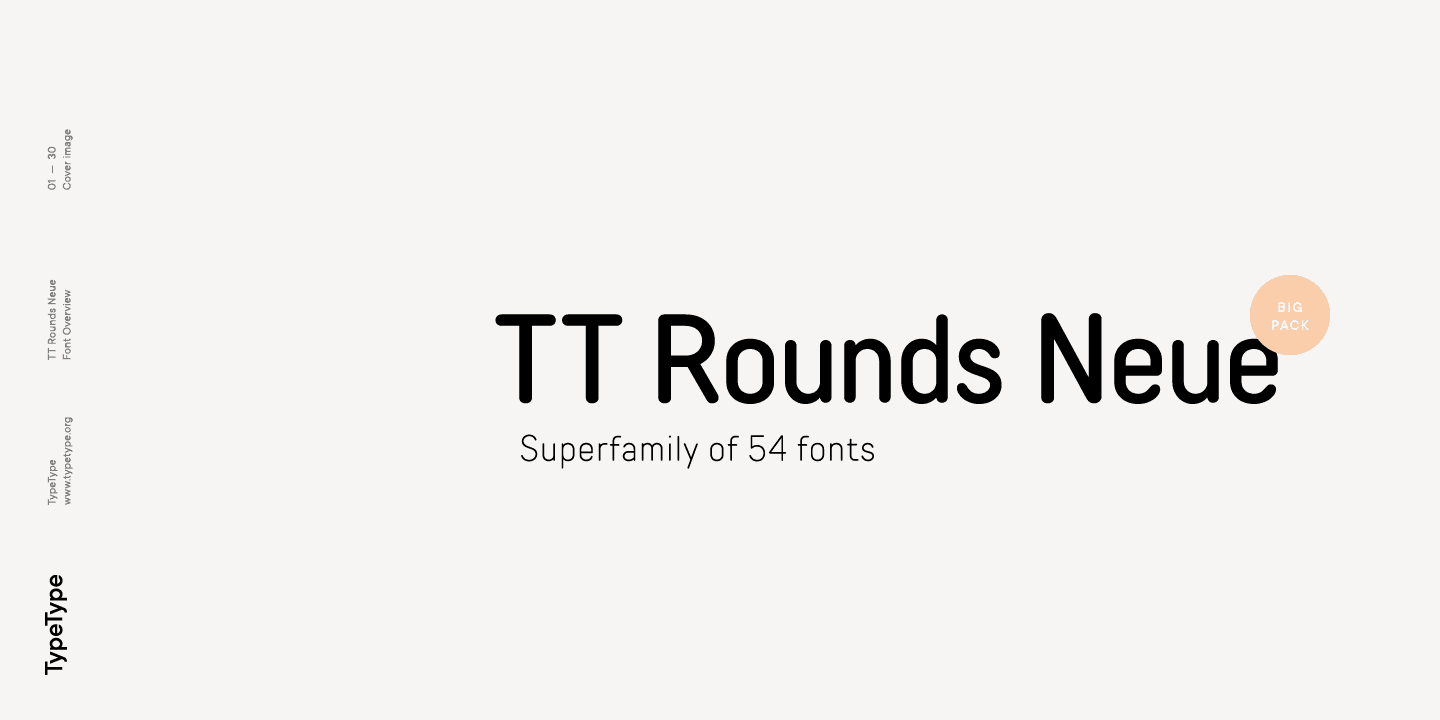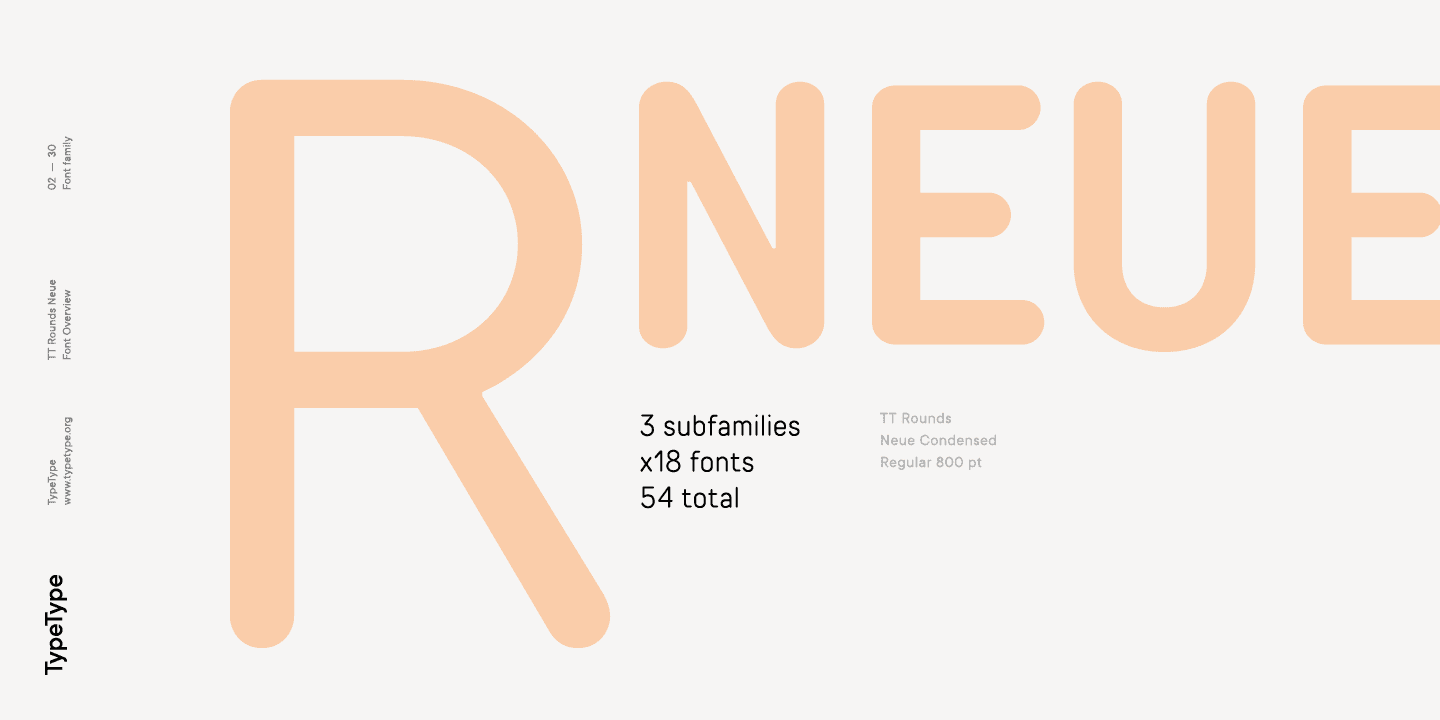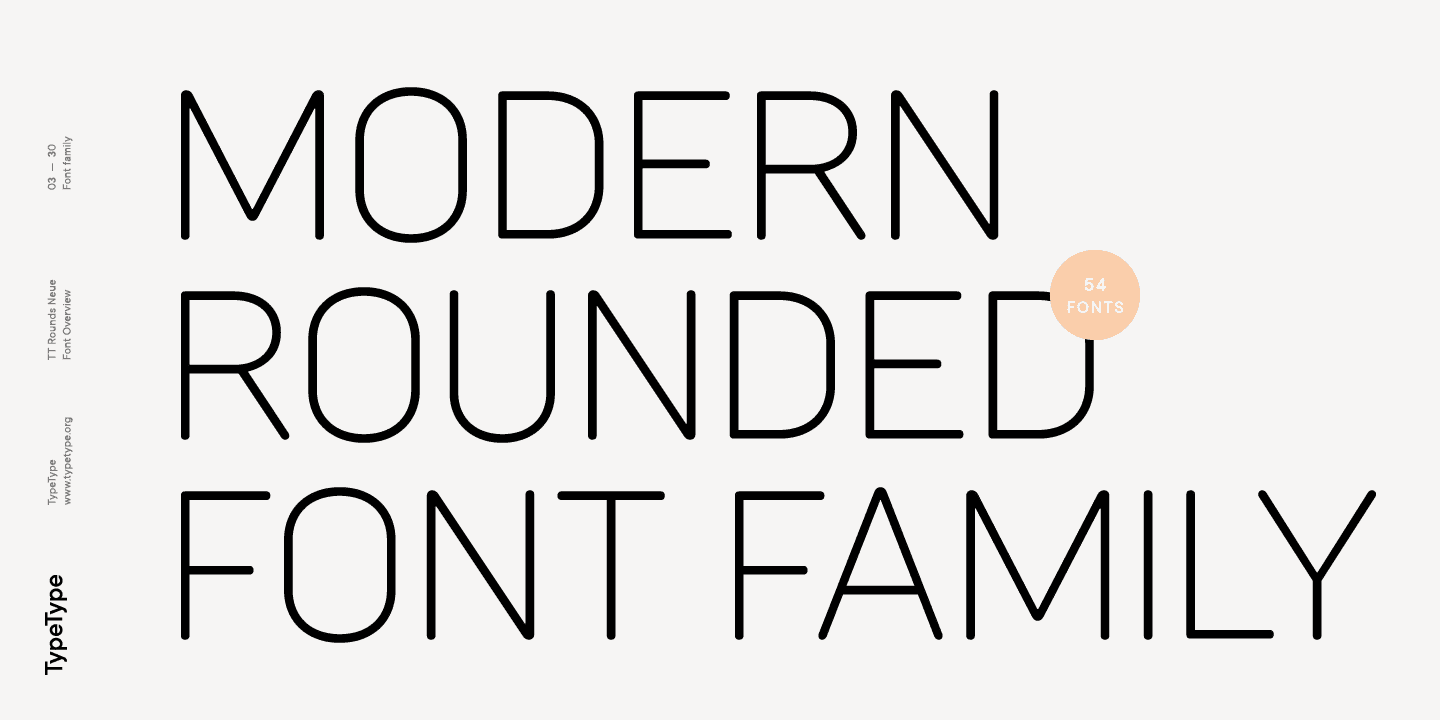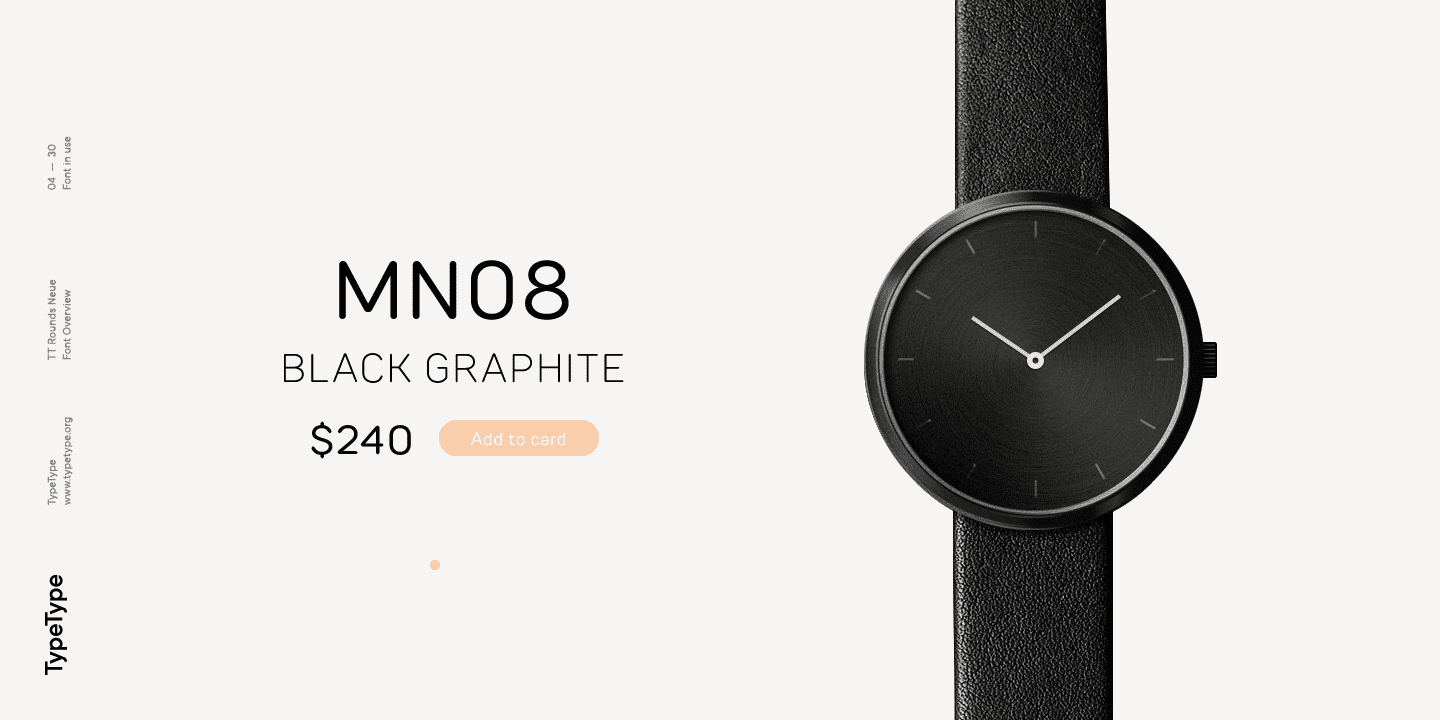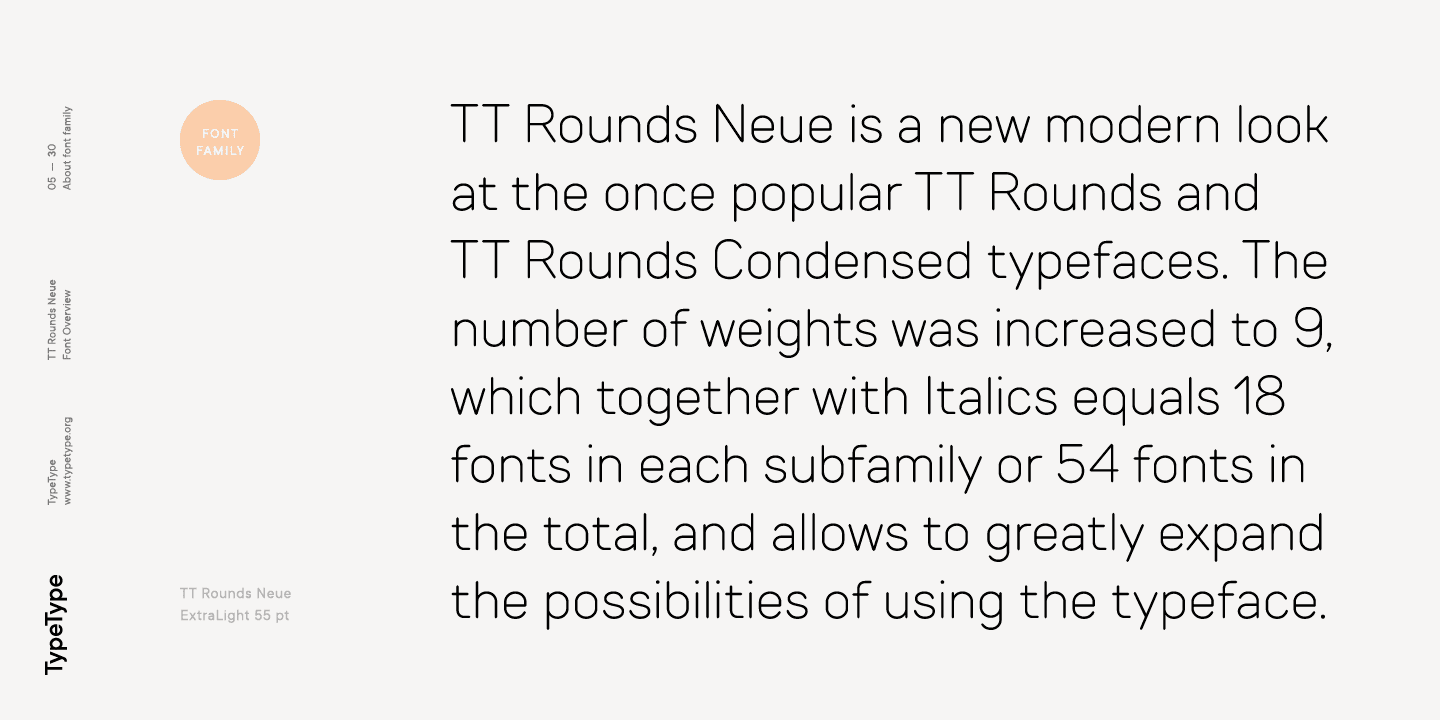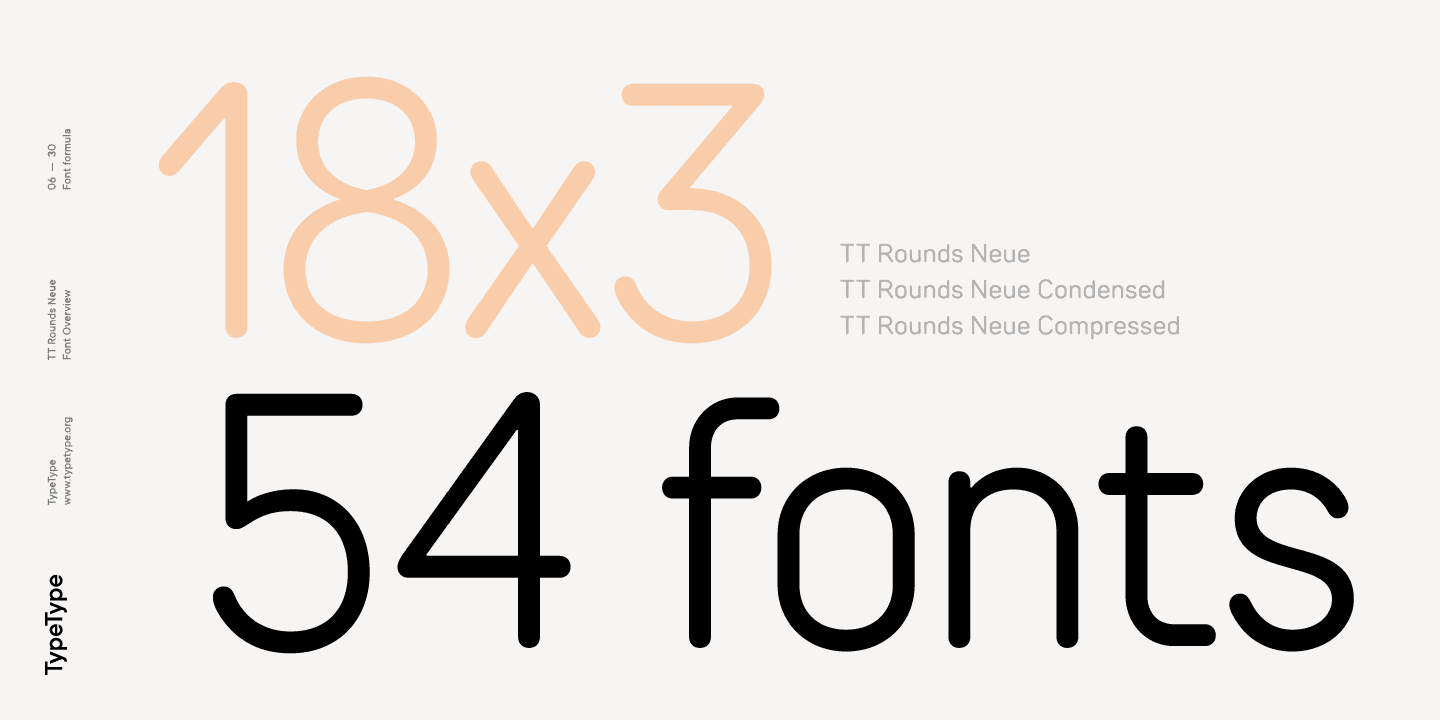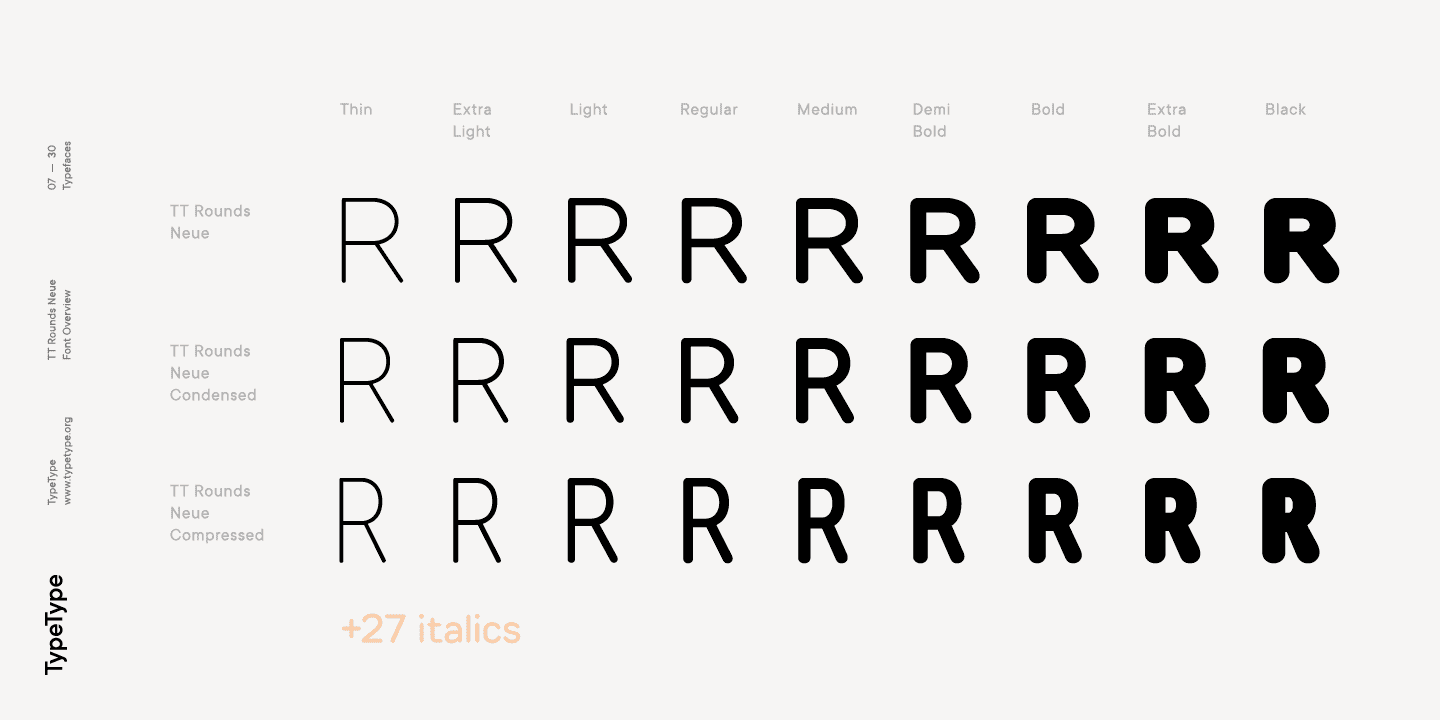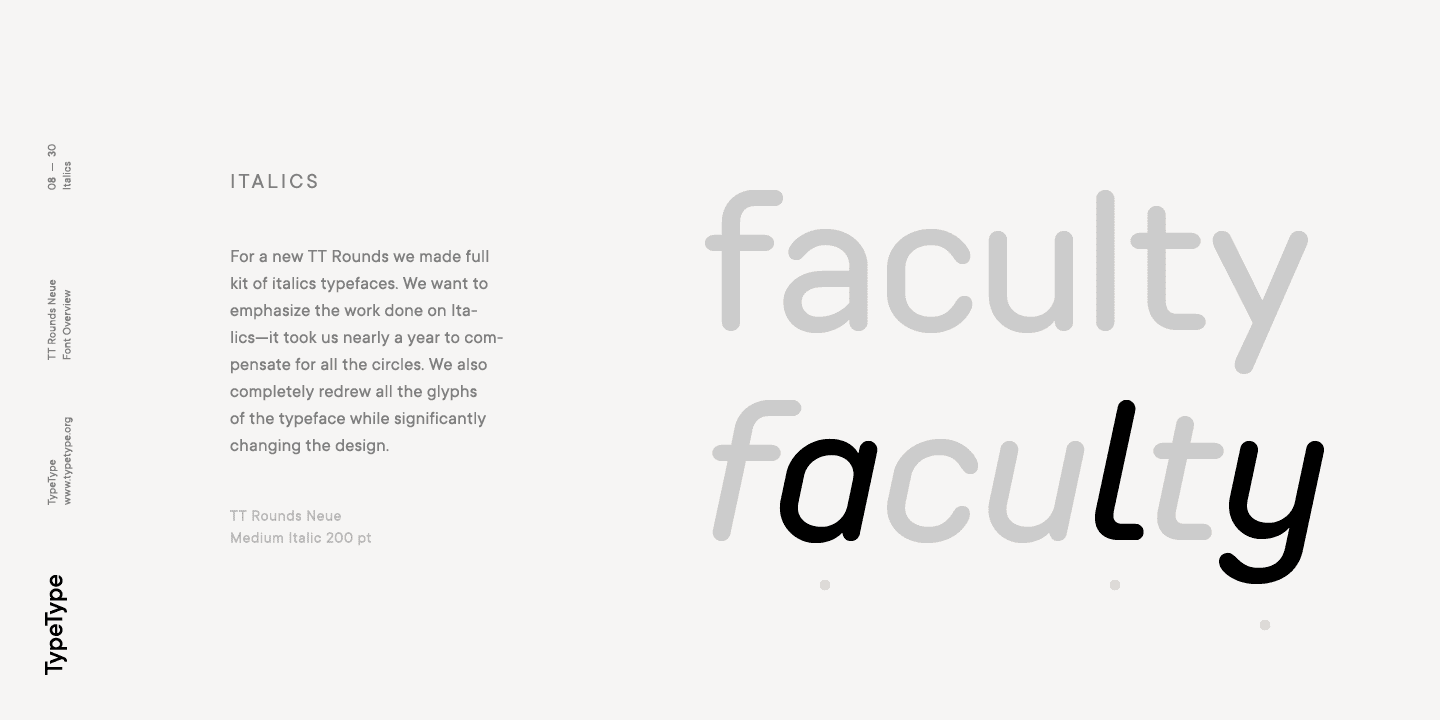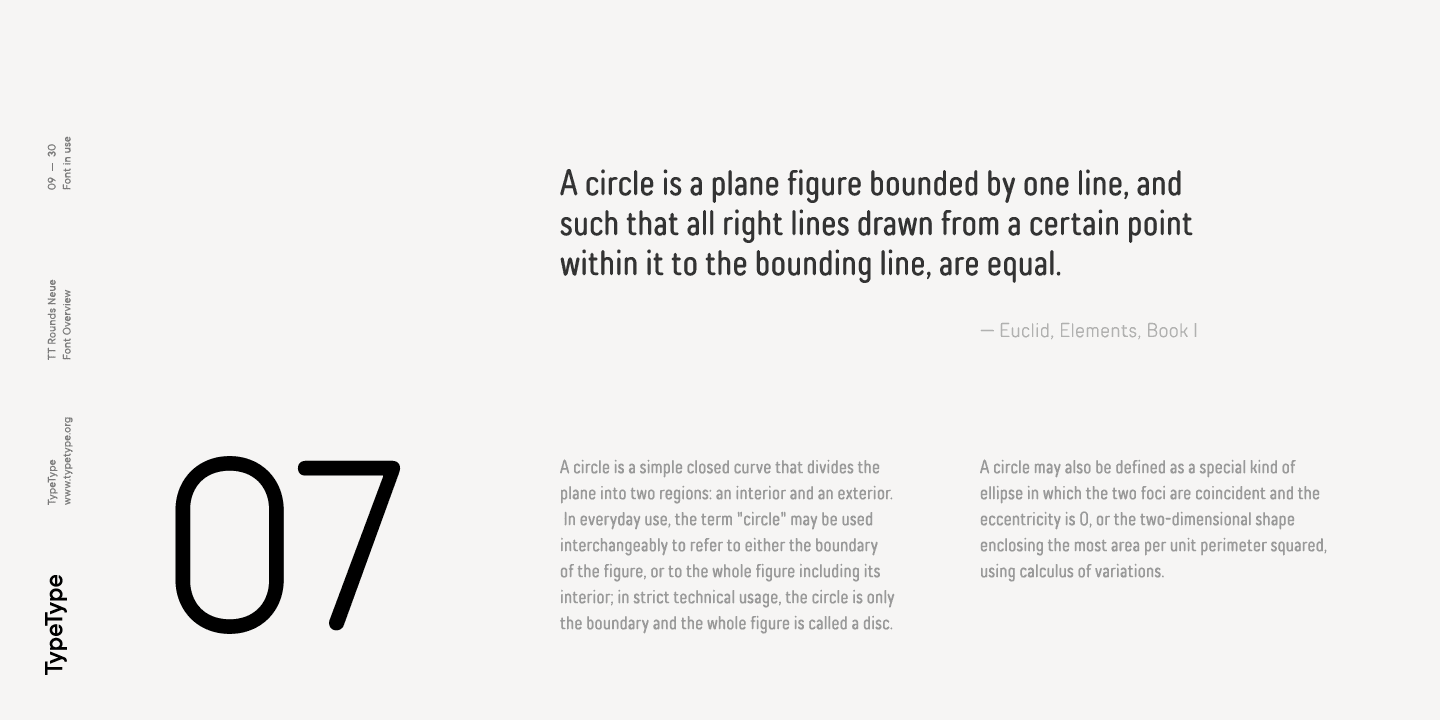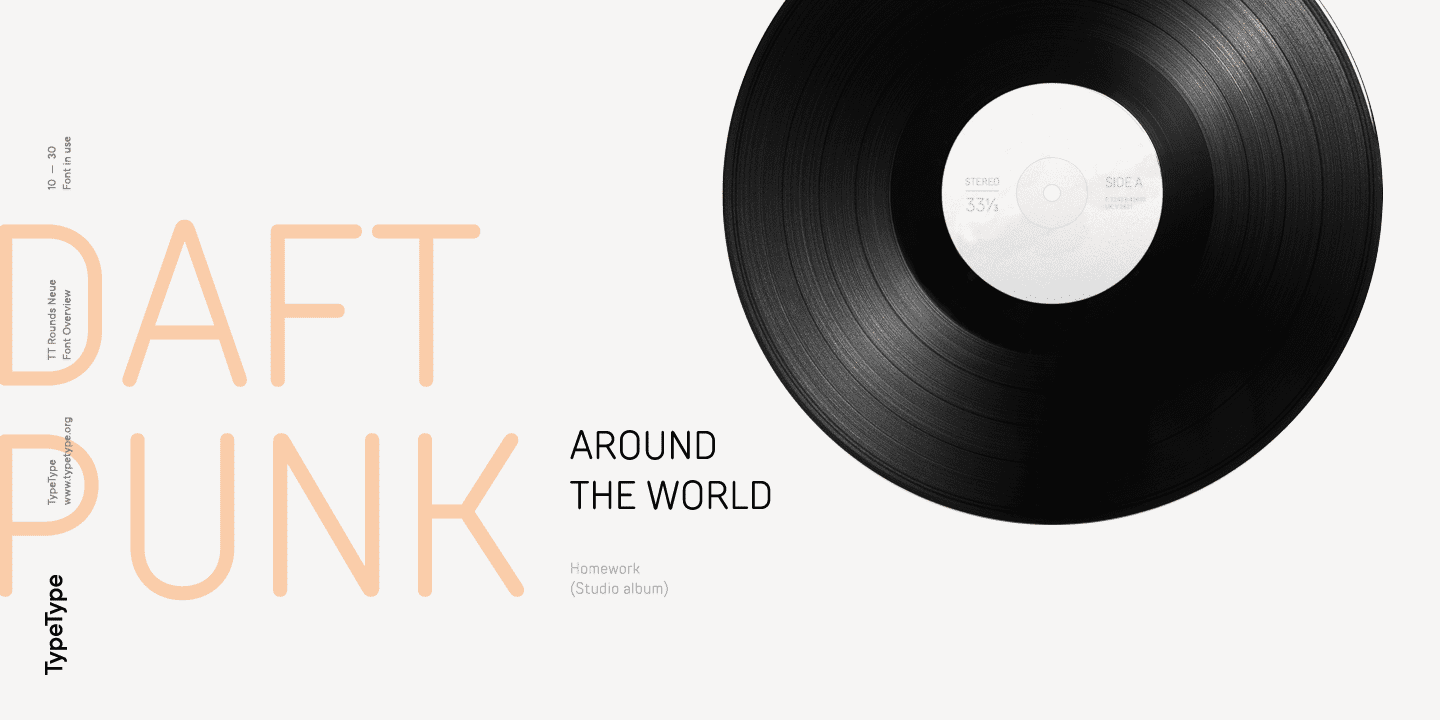
TT Rounds Neue Full Family (54 fonts)
To begin with, we corrected the visual balance between bold and thin faces and revised the proportions of the letters. We also completely redrew all the glyphs of the typeface while significantly changing the design of some of them. Thanks to this, the typeface looks more modern and can be used even in a text set. In addition, thanks to improved hinting, the typeface is well optimized for working on the web.
To the standard and condensed subfamilies, we have added a new compressed subfamily, and now TT Rounds Neue consists of three widths variations. The number of weights was increased to 9, which together with Italics equals 18 fonts in each subfamily or 54 fonts in the total, and allows to greatly expand the possibilities of using the typeface. We want to emphasize the work done on Italics—it took us nearly a year to compensate for all the circles.
In addition, now TT Rounds Neue boasts a broad support of OpenType features, which the old versions could only dream of. Now you can use ligatures, a set of alternate characters, old-style figures and many other useful features. The complete list of OpenType features that are used in TT Rounds Neue: frac, ordn, case, sups, sinf, numr, dnom, tnum, pnum, onum, liga, dlig, salt (aka ss01).